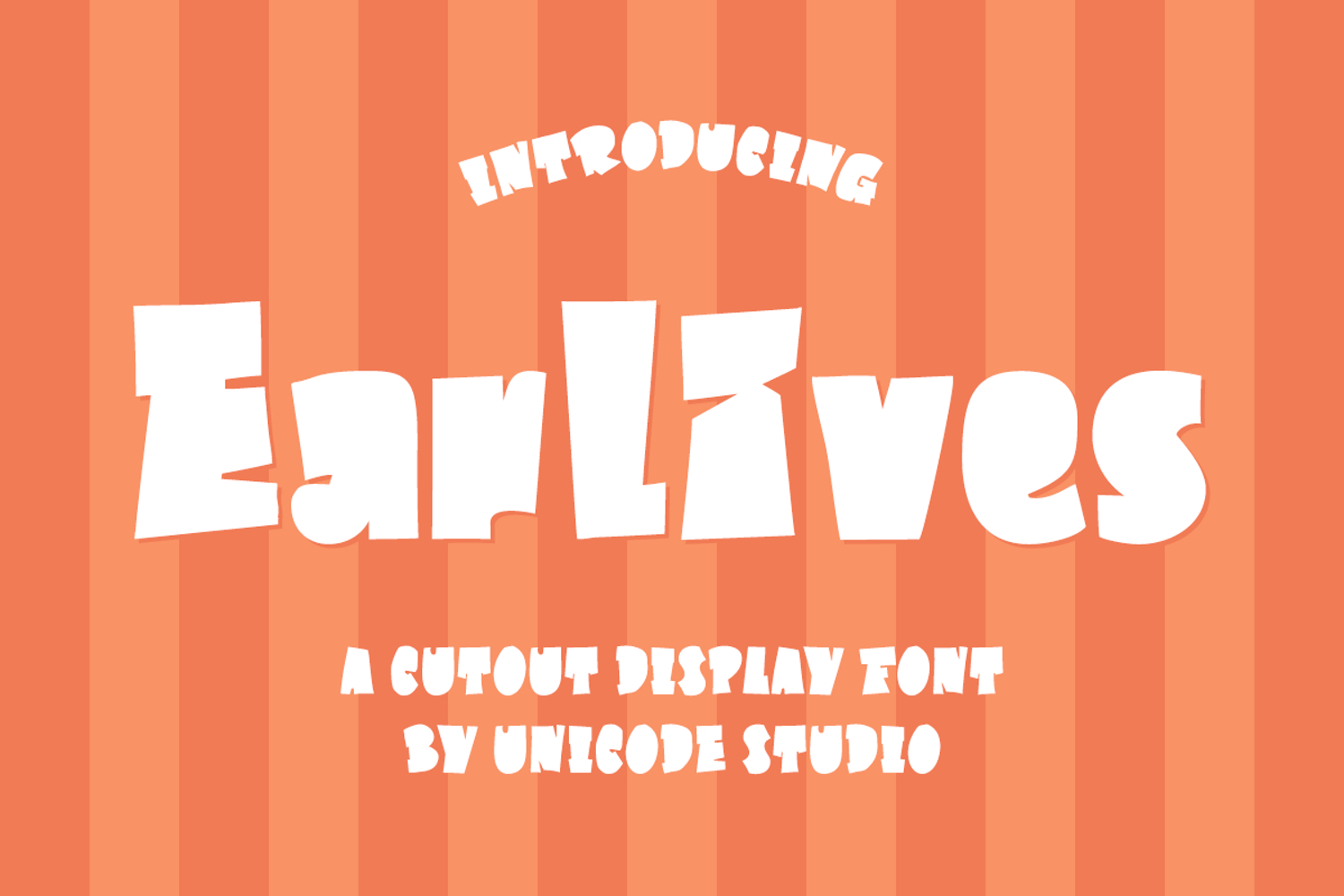
Earlives font is a modern cut-out display font that features thick, bold, and minimalist letterforms with strategic negative space, creating a bold yet elegant visual impact. Its contemporary design combines clean geometry with stylish gaps, making it perfect for fashion branding, editorial headlines, and high-end product packaging. This font combines sharp sophistication with a fresh, fashion-forward aesthetic, making it a go-to choice for designs that aim to be bold yet refined.
- Standard Ligatures
- Stylistic Alternates
- Uppercase and Lowercase
- Numeral & Punctuation
- International Symbols Support